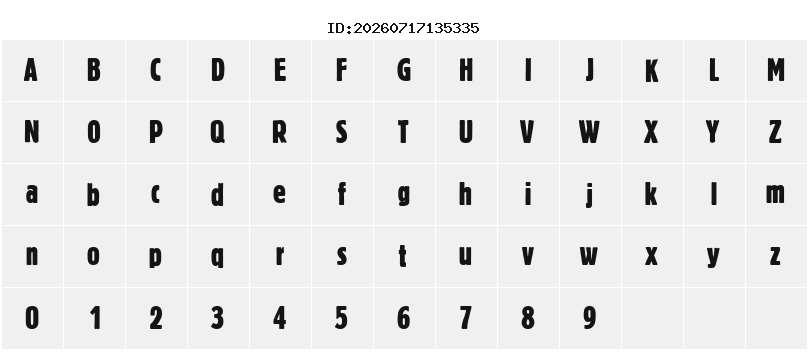
• Font Name: BlofeldExtraCond
• Full Font Name: BlofeldExtraCond-Regular
About BlofeldExtraCond.ttf
BlofeldExtraCond.ttf is a modern, elegant sans-serif font designed for ultimate readability and visual harmony. Perfect for branding, headlines, web design, and print materials.